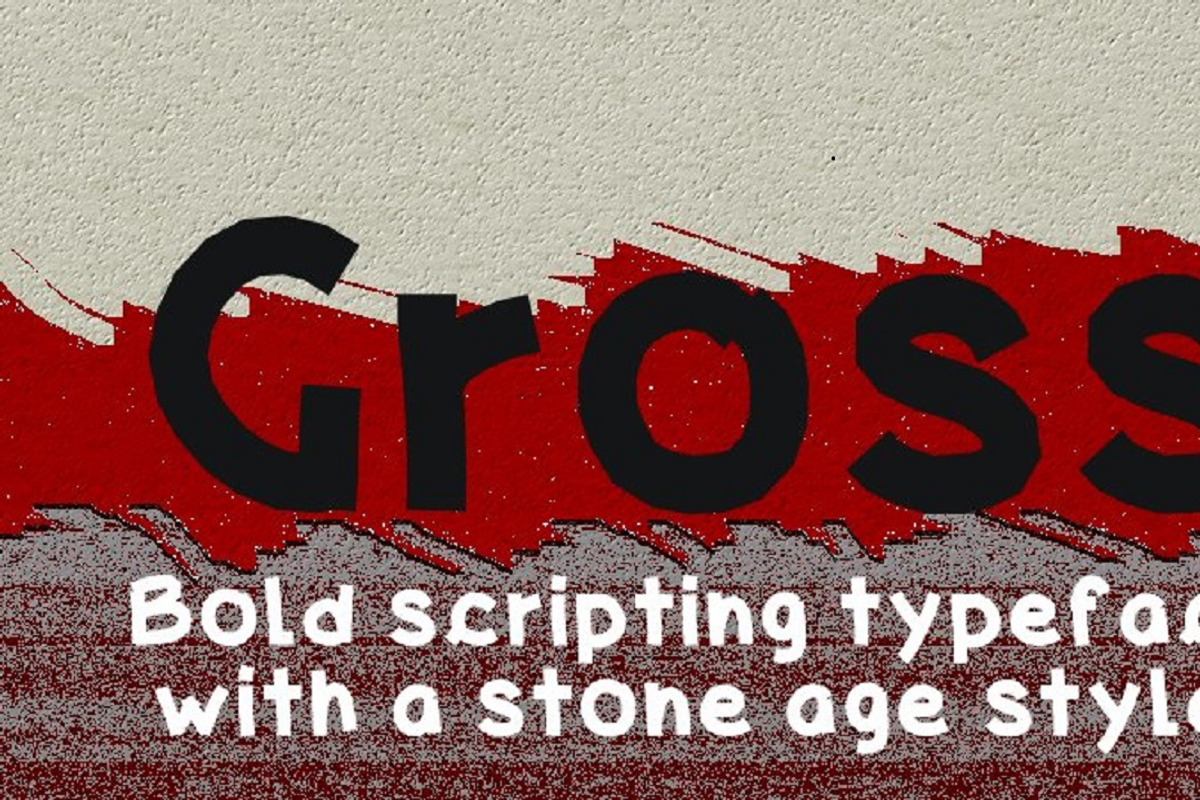
Gross, a bold script font
Gross font is a bold script typeface with a rudimentary and raw, stone age style. Gross font can be used to give you a stone age or strong message for your next design work.
Gross, a bold script font by Kreativ Font fits naturally into Branding, posters, packaging, typography.